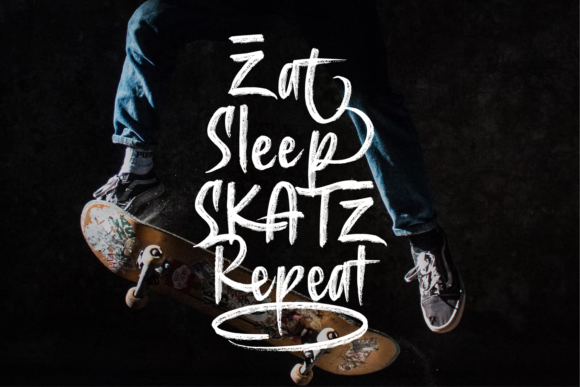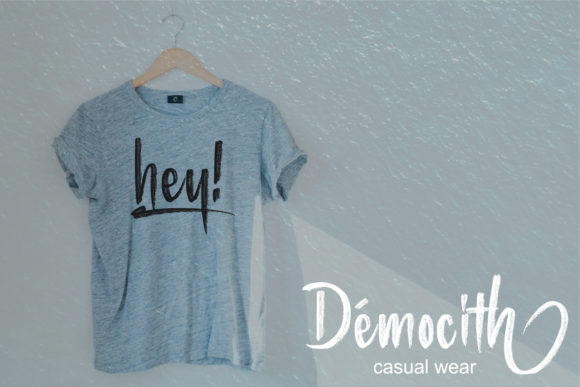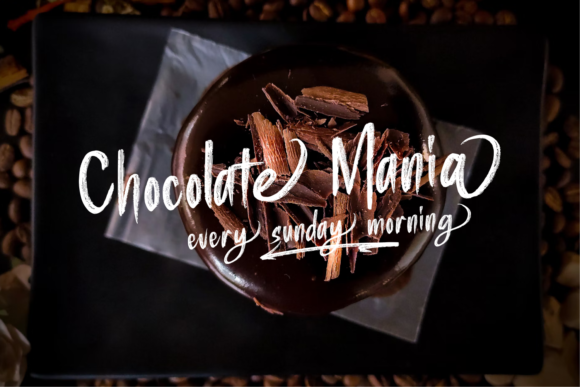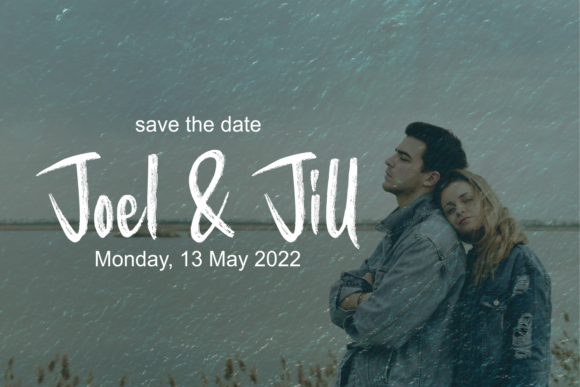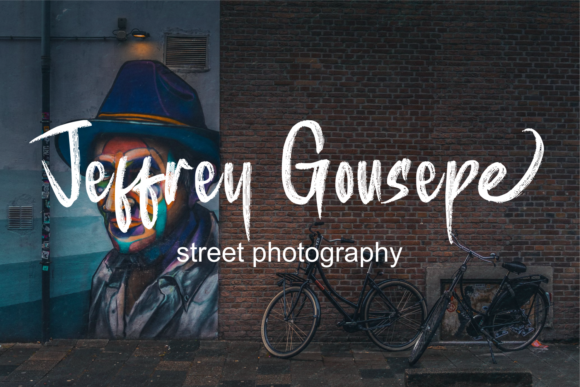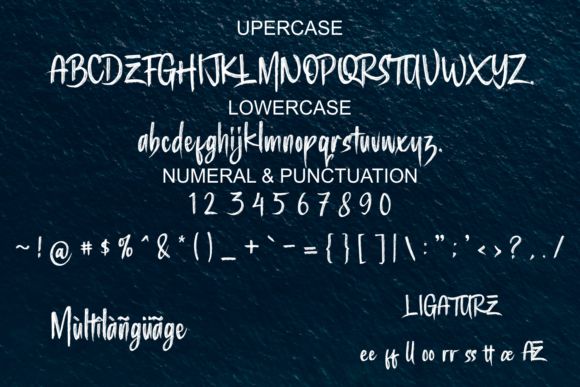
Falling Richees Font: A Handwritten Script with Authentic Dry Brush Imperfections
Are you tired of using the same old fonts in your designs? Look no further than the Falling Richees Font, a beautiful handwritten script that adds a touch of authenticity to any project. With its unique dry brush imperfections and PUA encoding, this font is perfect for designers and crafters looking to add a personal touch to their work.
What is Falling Richees Font?
Falling Richees Font is a handwritten script font that mimics the look of authentic dry brush writing. With its rough, uneven strokes and natural imperfections, this font adds a touch of warmth and personality to any design. Whether you’re working on a logo, a poster, or a digital project, Falling Richees Font is sure to make your work stand out.
Authentic Dry Brush Imperfections
One of the standout features of Falling Richees Font is its authentic dry brush imperfections. Unlike other fonts that can look sterile and polished, Falling Richees Font has a natural, hand-crafted look that is reminiscent of traditional brush writing. The font’s imperfections, such as uneven strokes and rough edges, add a touch of character and personality to your designs.
PUA Encoding for Easy Access to Glyphs and Swashes
Falling Richees Font is PUA (Private Use Area) encoded, which means that you can access all of the font’s glyphs and swashes with ease. PUA encoding allows designers to access special characters and glyphs that are not available in standard fonts, giving you more creative freedom and flexibility in your designs. With Falling Richees Font, you can easily add flourishes and swashes to your text, making it perfect for use in titles, headings, and other design elements.
Final Letter Combination for a Customized Look
Falling Richees Font also features a final letter combination, which allows you to get the look you aspire to. This feature allows you to customize the font to suit your design needs, making it perfect for use in a variety of projects. Whether you’re working on a logo, a poster, or a digital project, Falling Richees Font gives you the flexibility to create a unique and personalized design.
Falling Richees Font is perfect for designers and crafters looking to add a personal touch to their work. With its unique dry brush imperfections and PUA encoding, this font is ideal for use in a variety of projects, including:
- Digital projects, such as social media graphics and blog posts
- Crafting projects, such as handmade cards and scrapbooking
Why Choose Falling Richees Font?
There are many reasons why you should choose Falling Richees Font for your next design project. Here are just a few:
- Unique and authentic dry brush imperfections
- PUA encoding for easy access to glyphs and swashes
- Final letter combination for a customized look
- Perfect for use in a variety of projects, from logos to digital projects
In conclusion, Falling Richees Font is a beautiful handwritten script font that adds a touch of authenticity to any design. With its unique dry brush imperfections, PUA encoding, and final letter combination, this font is perfect for designers and crafters looking to add a personal touch to their work. Whether you’re working on a logo, a poster, or a digital project, Falling Richees Font is sure to make your work stand out.